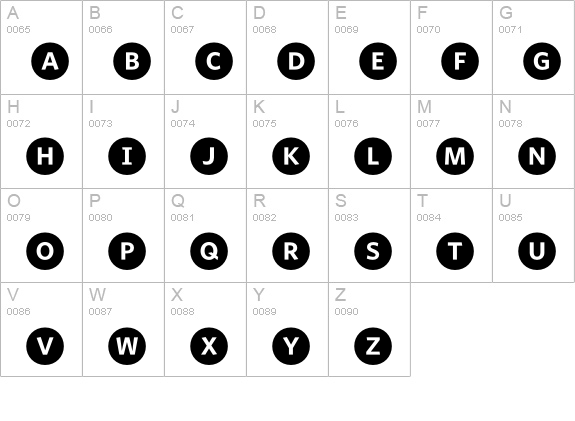
WhitneyIndexBlack-RoundBd is a stunning font that exudes elegance and sophistication. Its bold and round design makes it perfect for creating eye-catching headlines, logos, and branding materials. This font is meticulously crafted with attention to detail, ensuring every curve and line is perfectly balanced. The clean and modern aesthetic of WhitneyIndexBlack-RoundBd adds a touch of professionalism to any design project. One of the best things about WhitneyIndexBlack-RoundBd is that it is freely available to download at FontsMarket.com. This means that you can easily access this incredible font without any cost. Whether you are a professional designer or a hobbyist, this font is a valuable addition to your collection. The versatility of WhitneyIndexBlack-RoundBd allows it to be used in various design contexts. From print materials such as brochures and posters to digital platforms like websites and social media graphics, this font stands out and commands attention. The legibility of WhitneyIndexBlack-RoundBd is exceptional, making it suitable for both large and small sizes. Its bold and rounded letters ensure that your message is clear and easily readable, even from a distance. With WhitneyIndexBlack-RoundBd, you can effortlessly create captivating designs that leave a lasting impression. Its timeless and classic appeal makes it a go-to choice for designers who want to make a statement. In conclusion, WhitneyIndexBlack-RoundBd is a font that combines elegance, versatility, and legibility. Its availability as a free download at FontsMarket.com makes it even more accessible to designers and creatives. Don't miss out on the opportunity to enhance your design projects with this exceptional font.